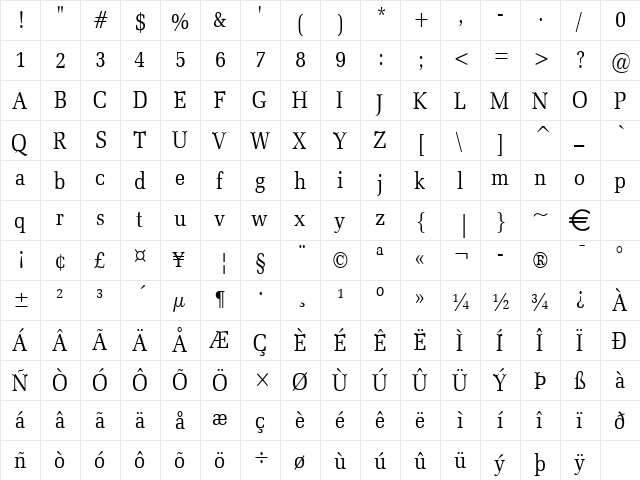
BidRomanCondensed Normal
Design Context for BidRomanCondensed Typeface
BidRomanCondensed takes a measured approach to typography — its balanced proportions and neutral character make it a reliable workhorse for both digital and print work. The condensed width makes it efficient for tight spaces without sacrificing legibility.